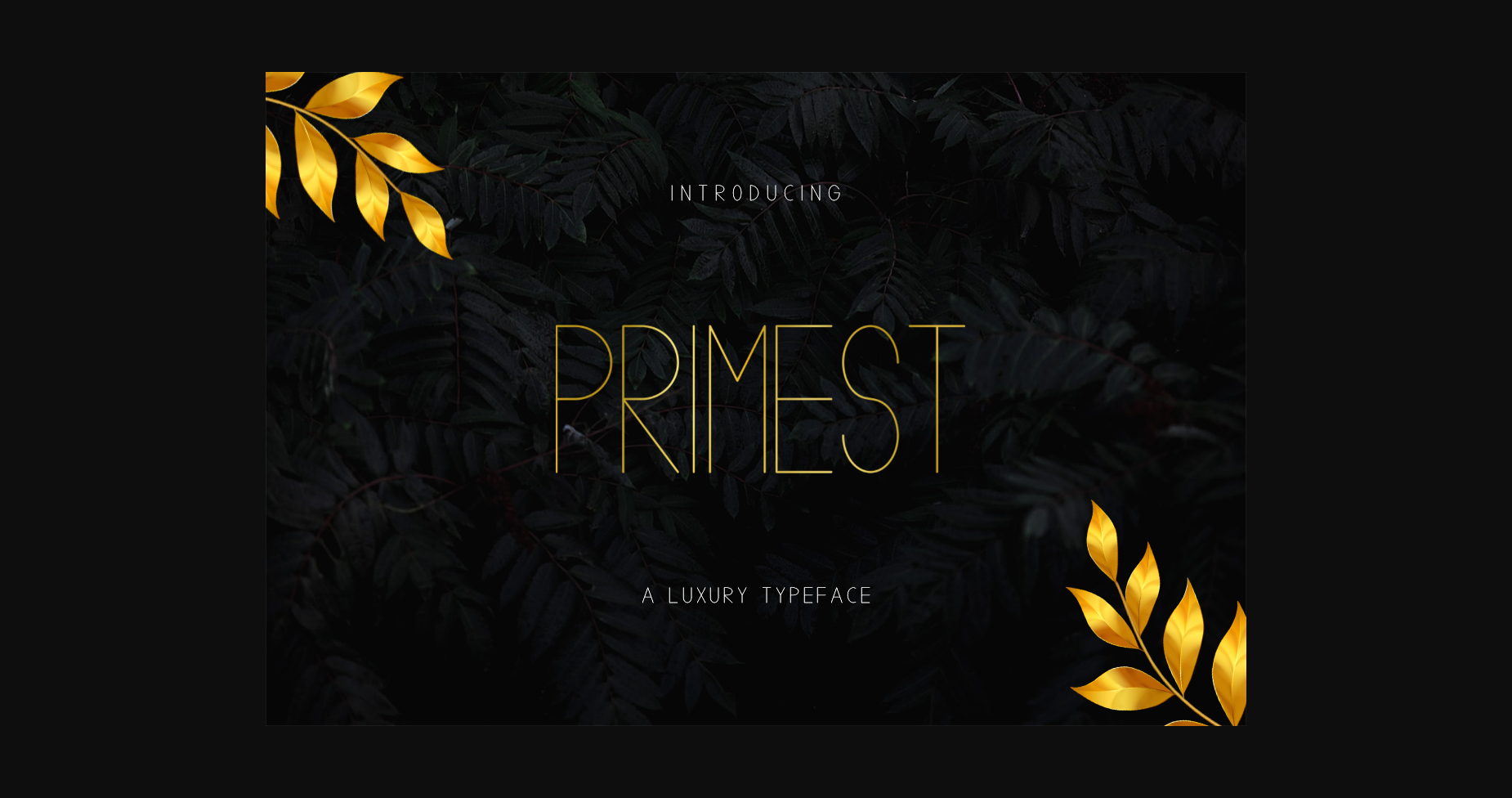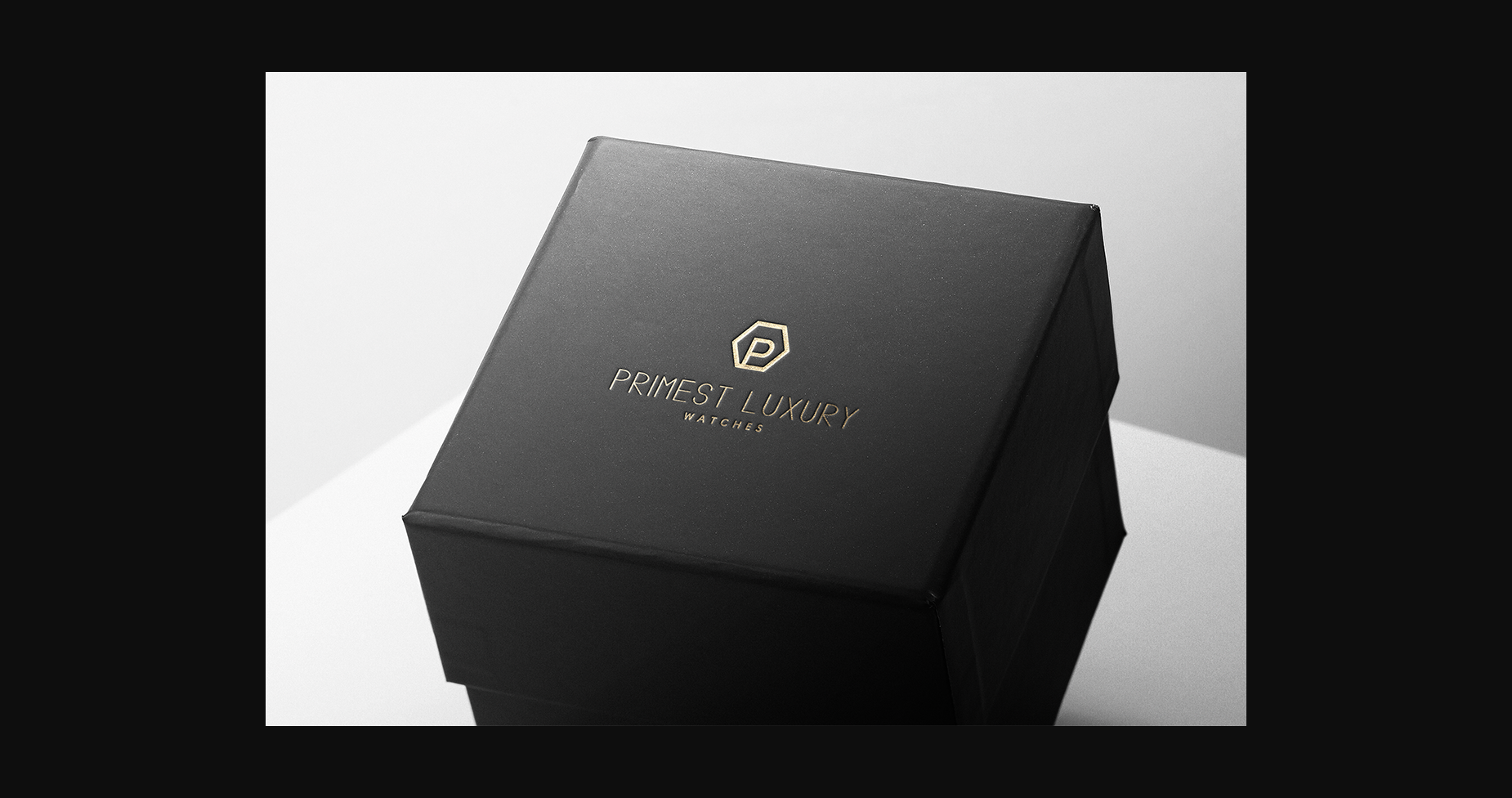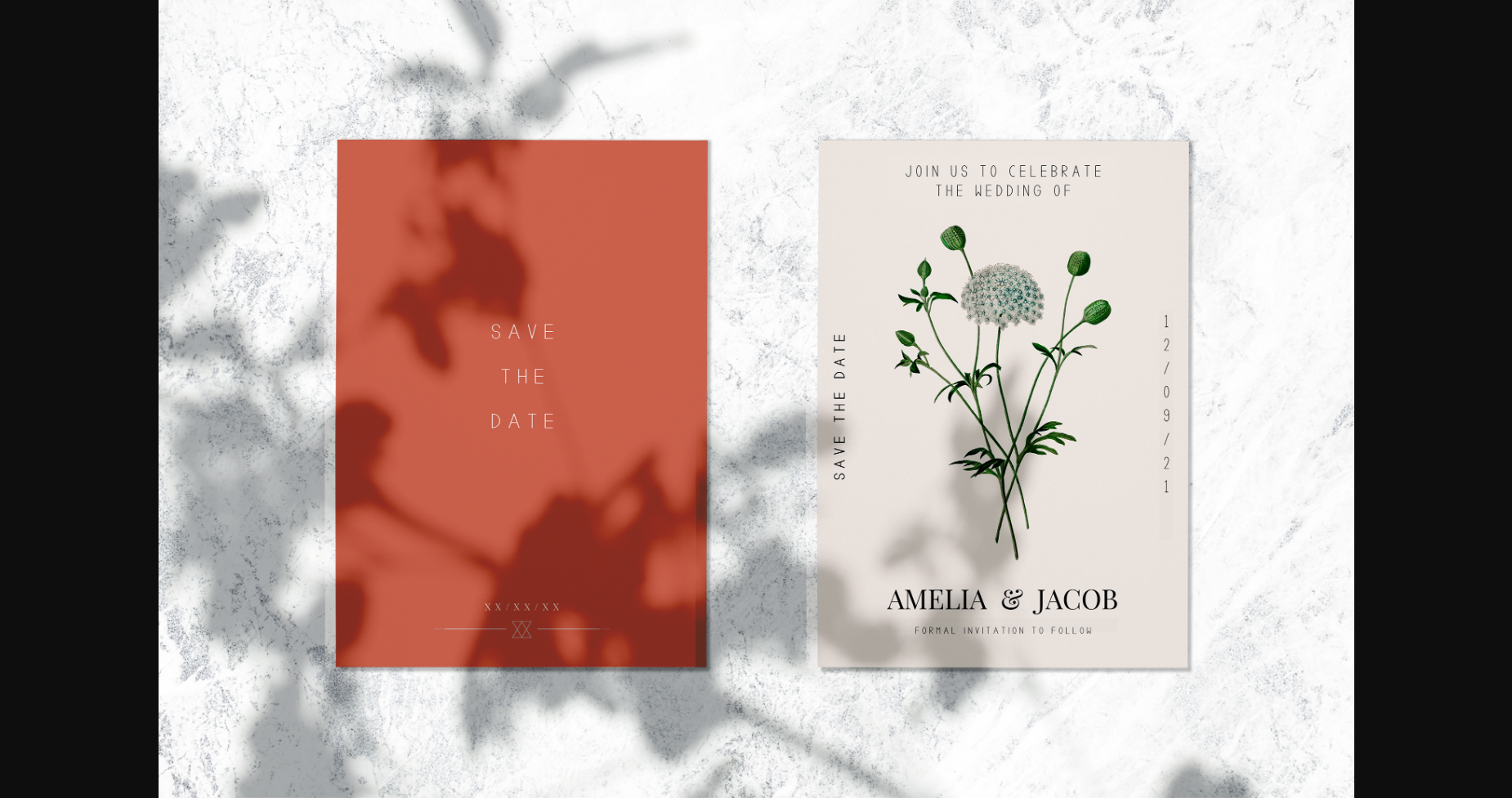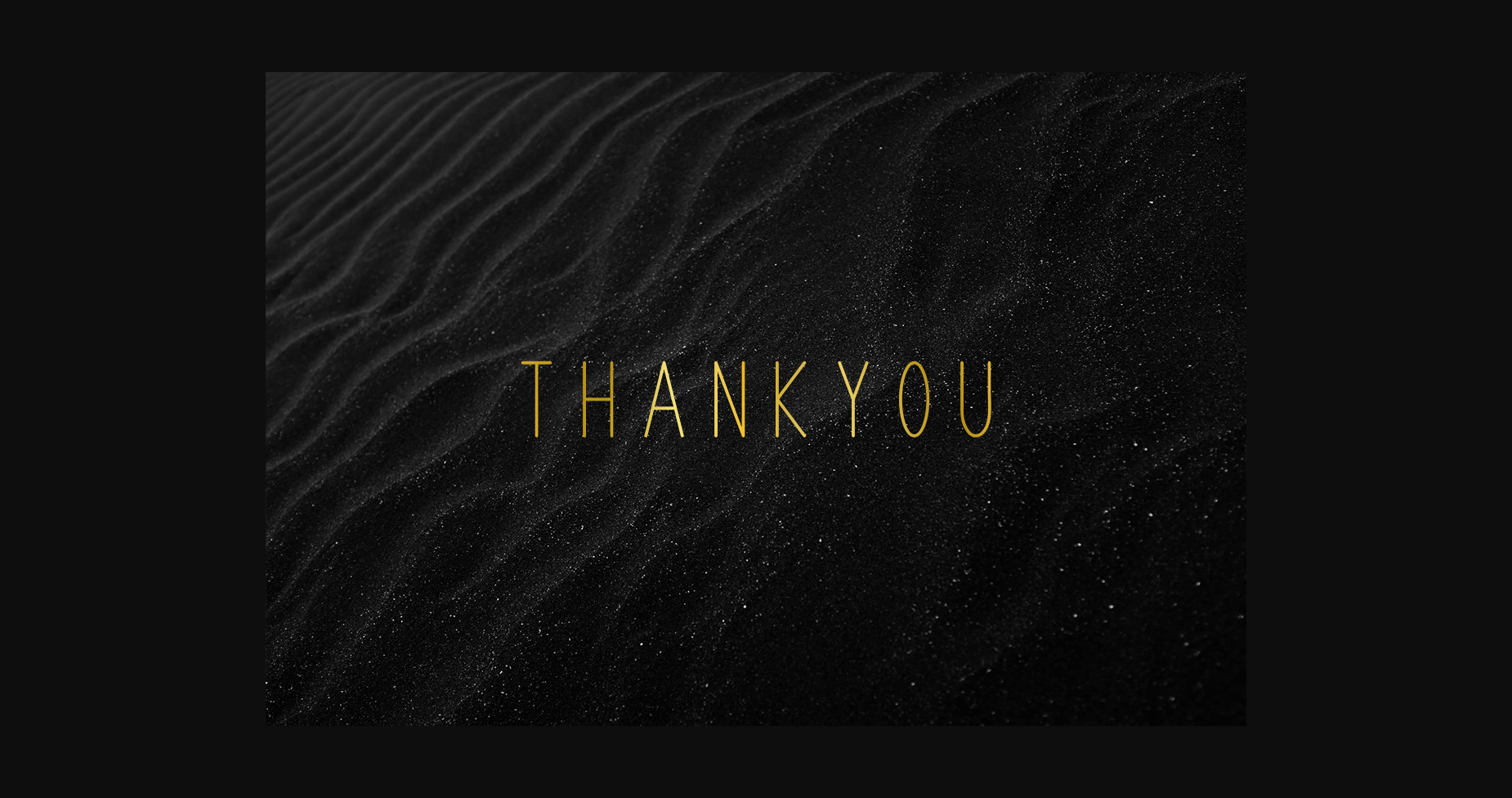
Primest is a very simple sans serif font featuring minimalistic characters that are well-spaced and extremely easy to read. Use it in your most creative ideas and notice how it makes them stand out!